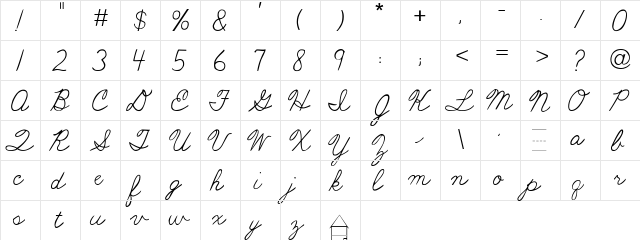
Basic Cursive Handwriting Regular
Design Context for Basic Cursive Handwriting Typeface
Basic Cursive Handwriting flows with the natural rhythm of handwritten lettering, making it ideal for designs that call for warmth and personal expression.
Font Pairing: Combine Basic Cursive Handwriting with a simple geometric sans for maximum contrast — the tension between flowing curves and clean structure is a classic typographic pairing.
Pro Tip: Pair Basic Cursive Handwriting with a clean sans-serif for supporting text. The contrast between fluid script and geometric structure creates an elegant typographic hierarchy.